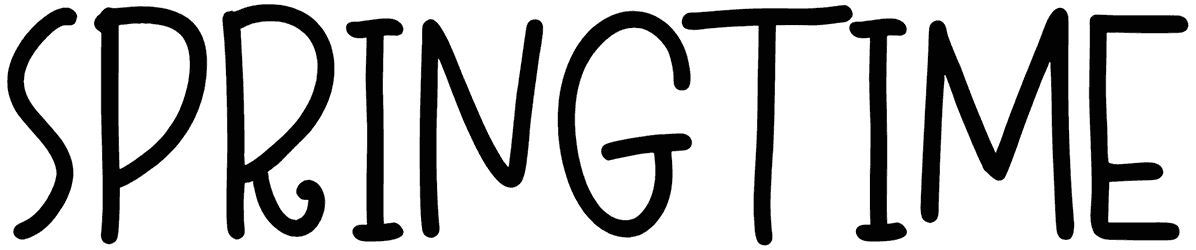
Springtime Font
The best way to convey the excitement of happy festivals to viewers is to use passionate elements in the design of posters and invitation cards. Springtime is one of the elements that can play an effective role in the success of these festivals.
As an attractive factor, it can call people to you. This bullet journal font doesn’t contain small letters and numbers, but it can deliver your message well in the form of headlines and short texts.